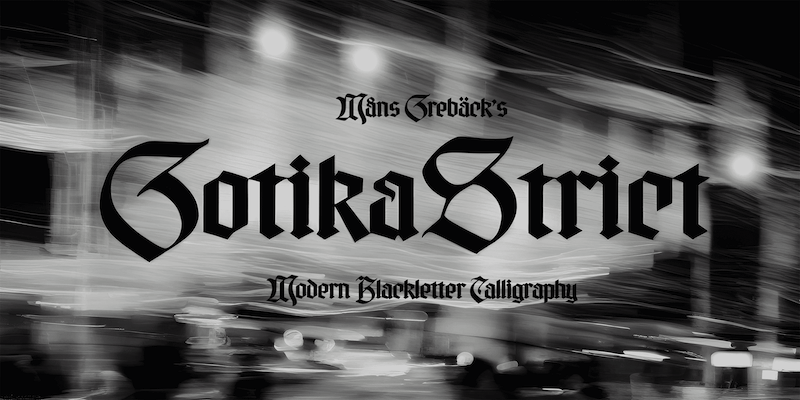
Font name: | Gotika Strict |
NOTE: This font is for PERSONAL USE ONLY! To purchase a commercial license, visit: http://mn.sg/gotika Inspired by ancient manuscripts and the unique geometry found in medieval architecture, Gotika Strict is merging old-world charm with contemporary sensibilities. For questions, please visit www.mansgreback.com/faq |